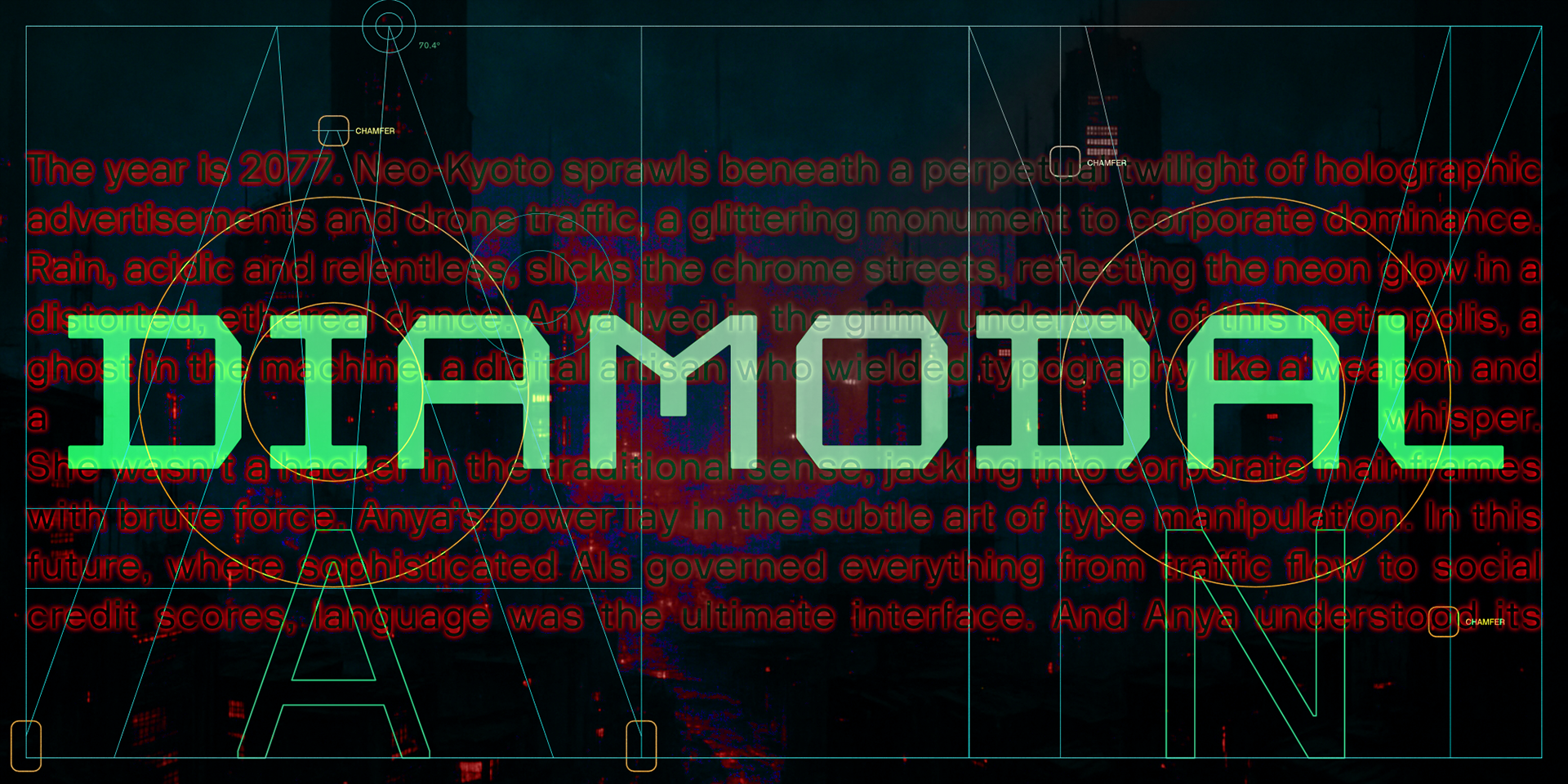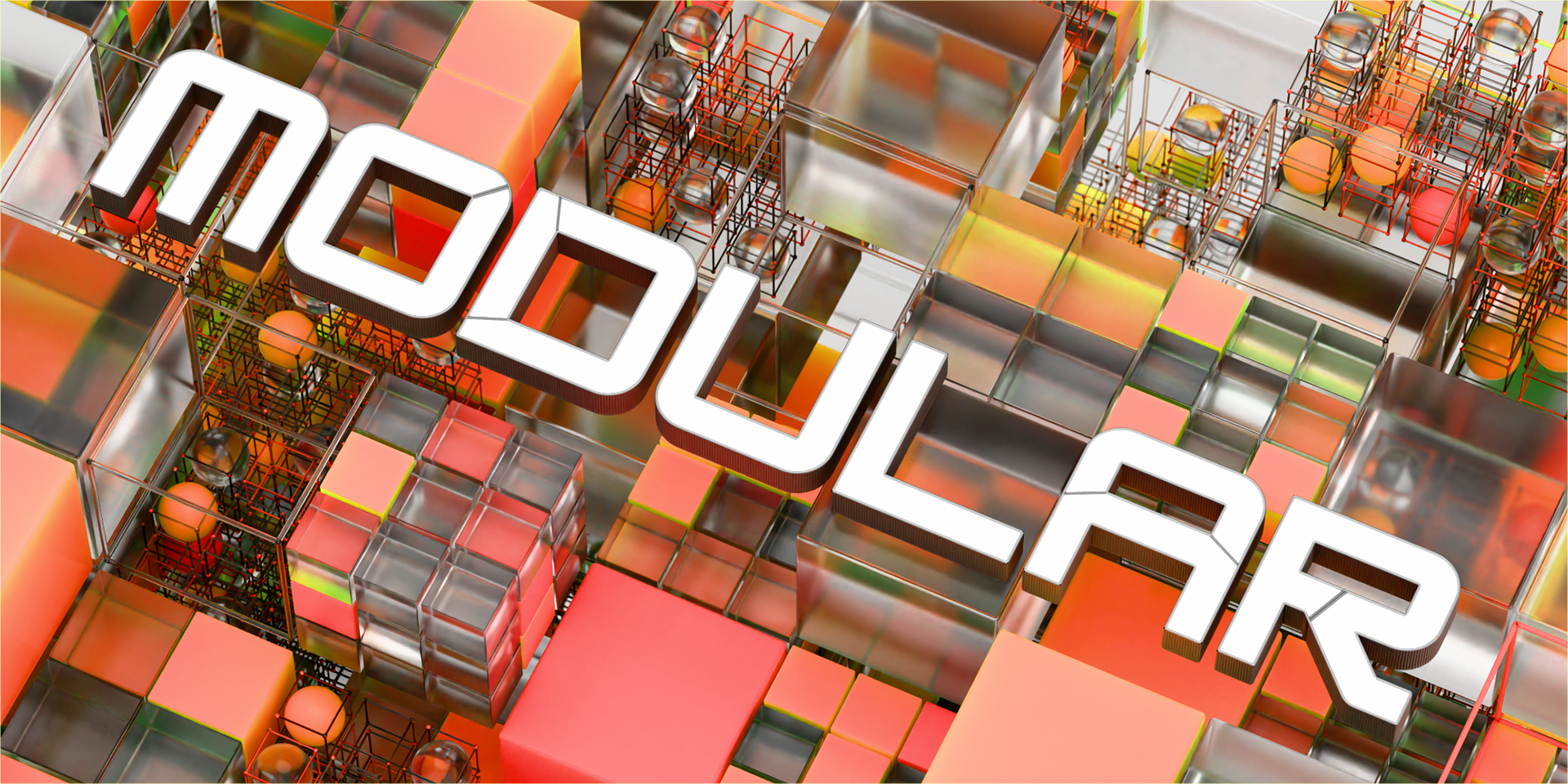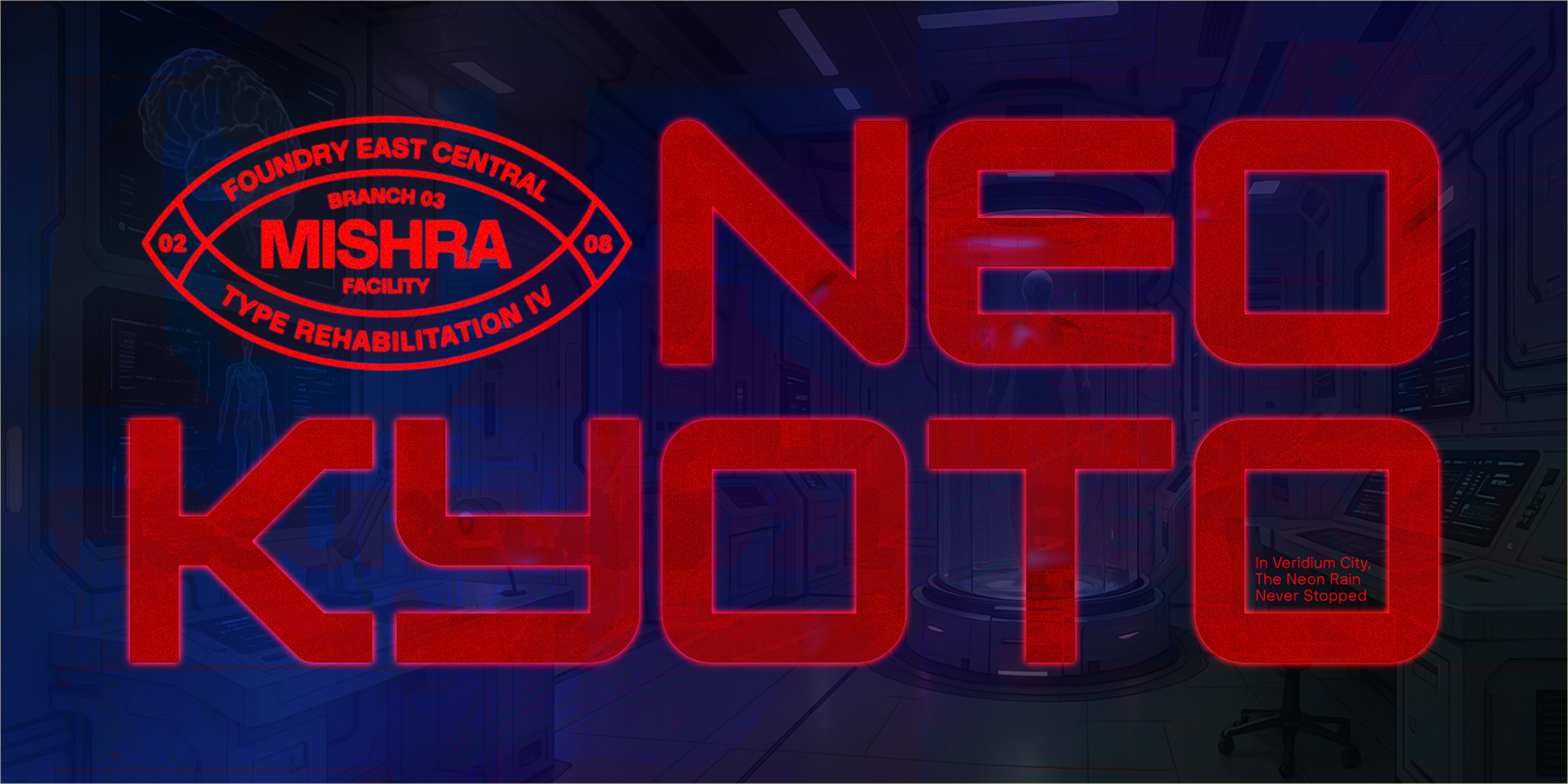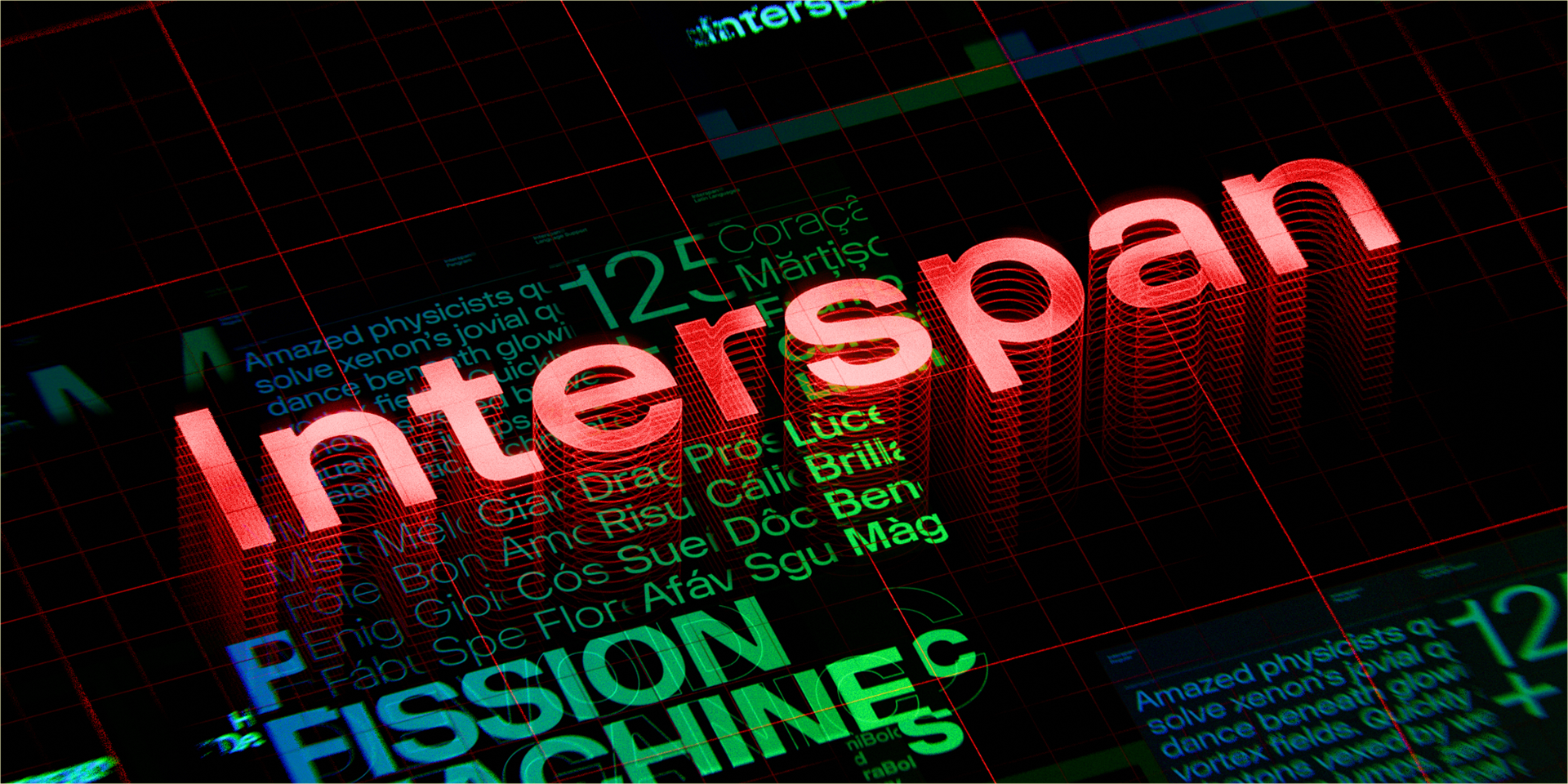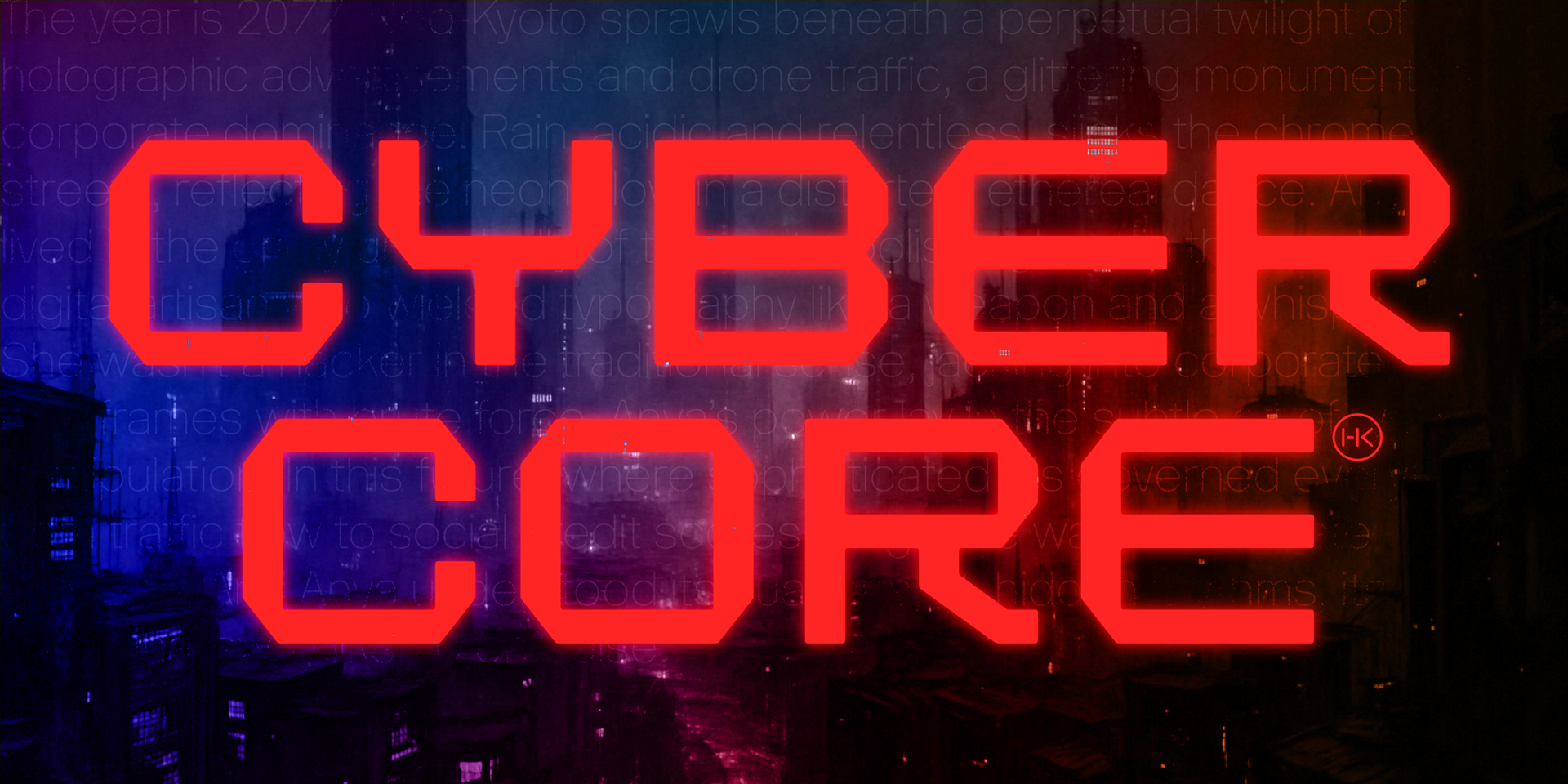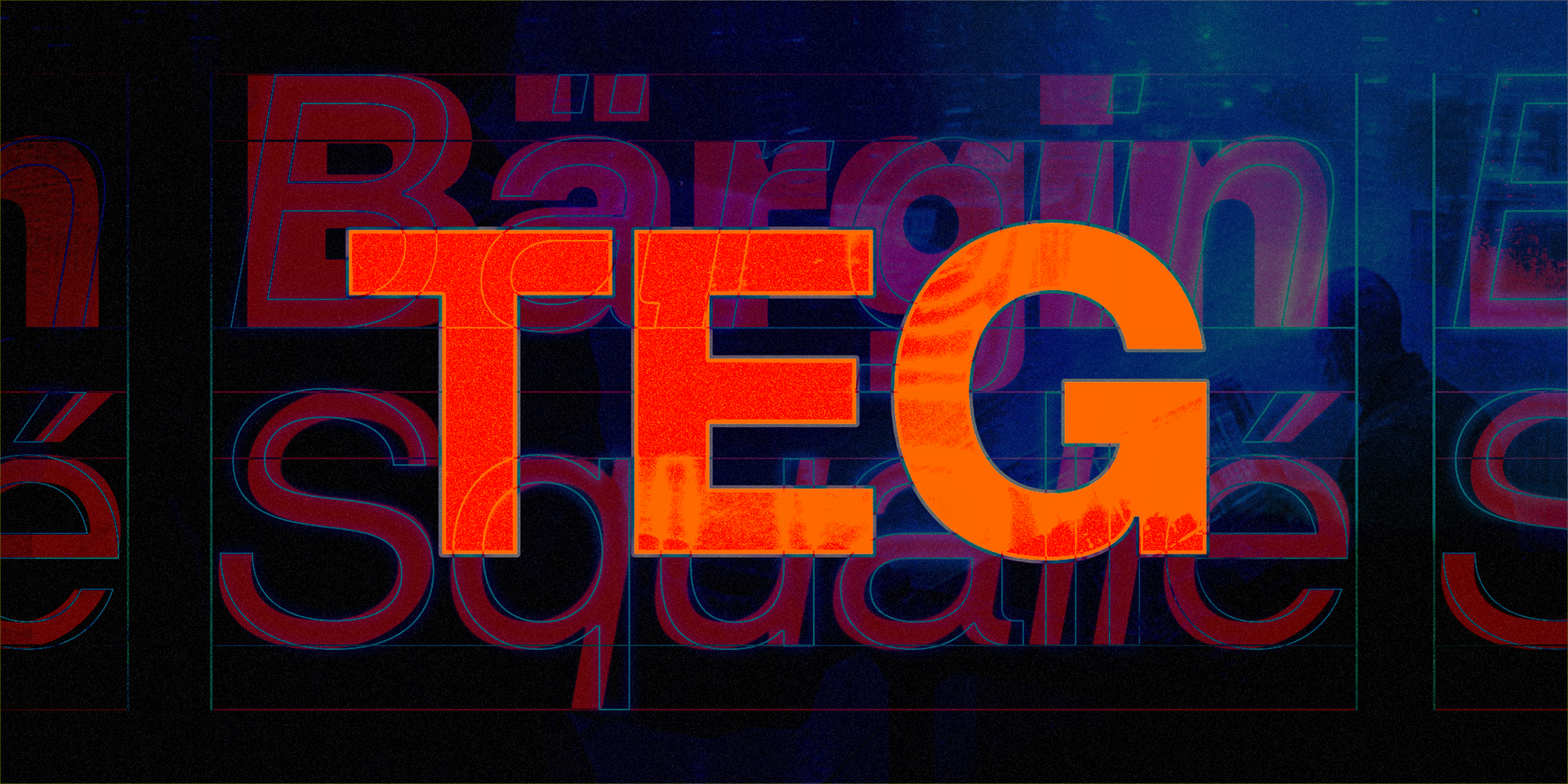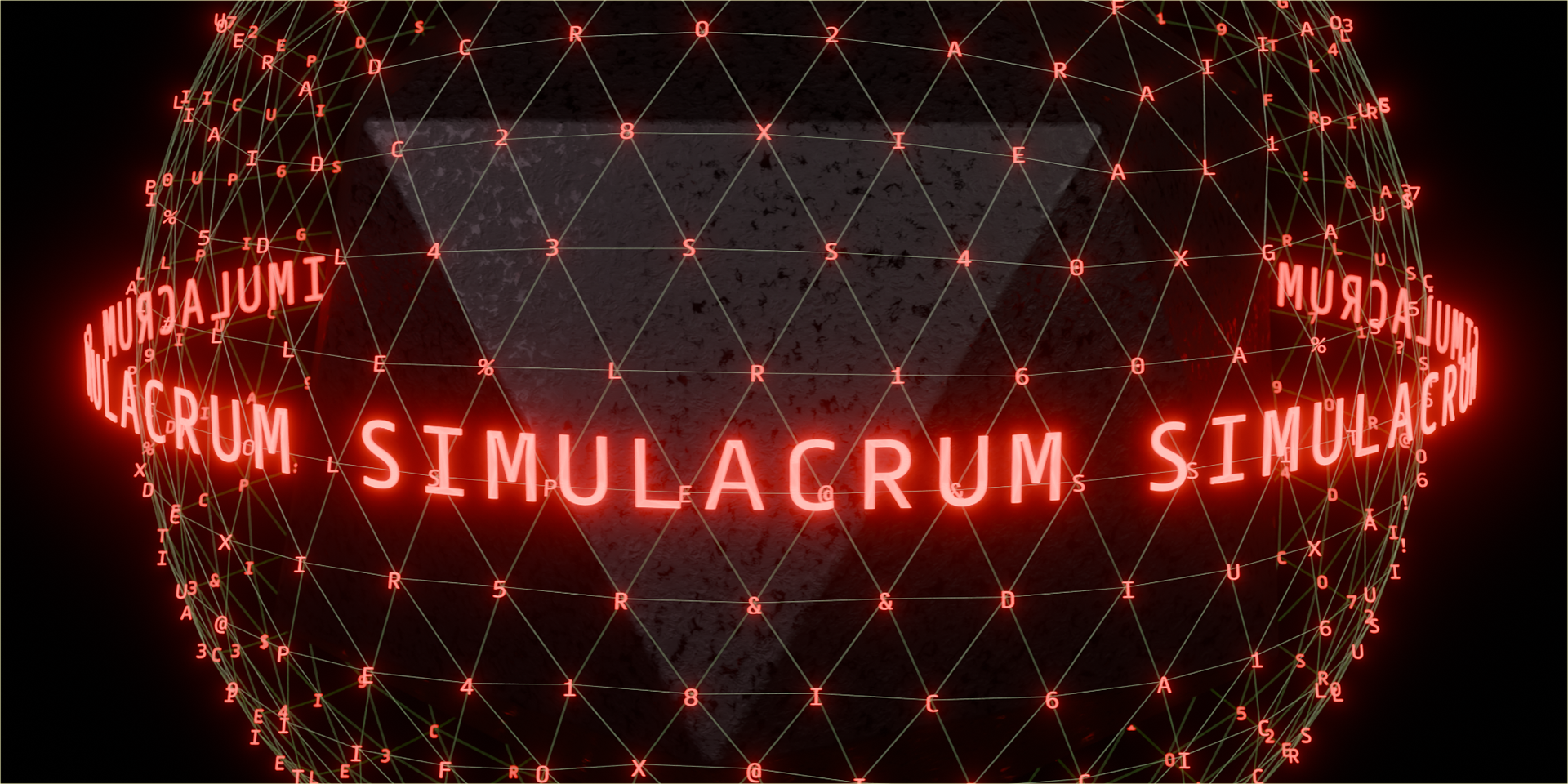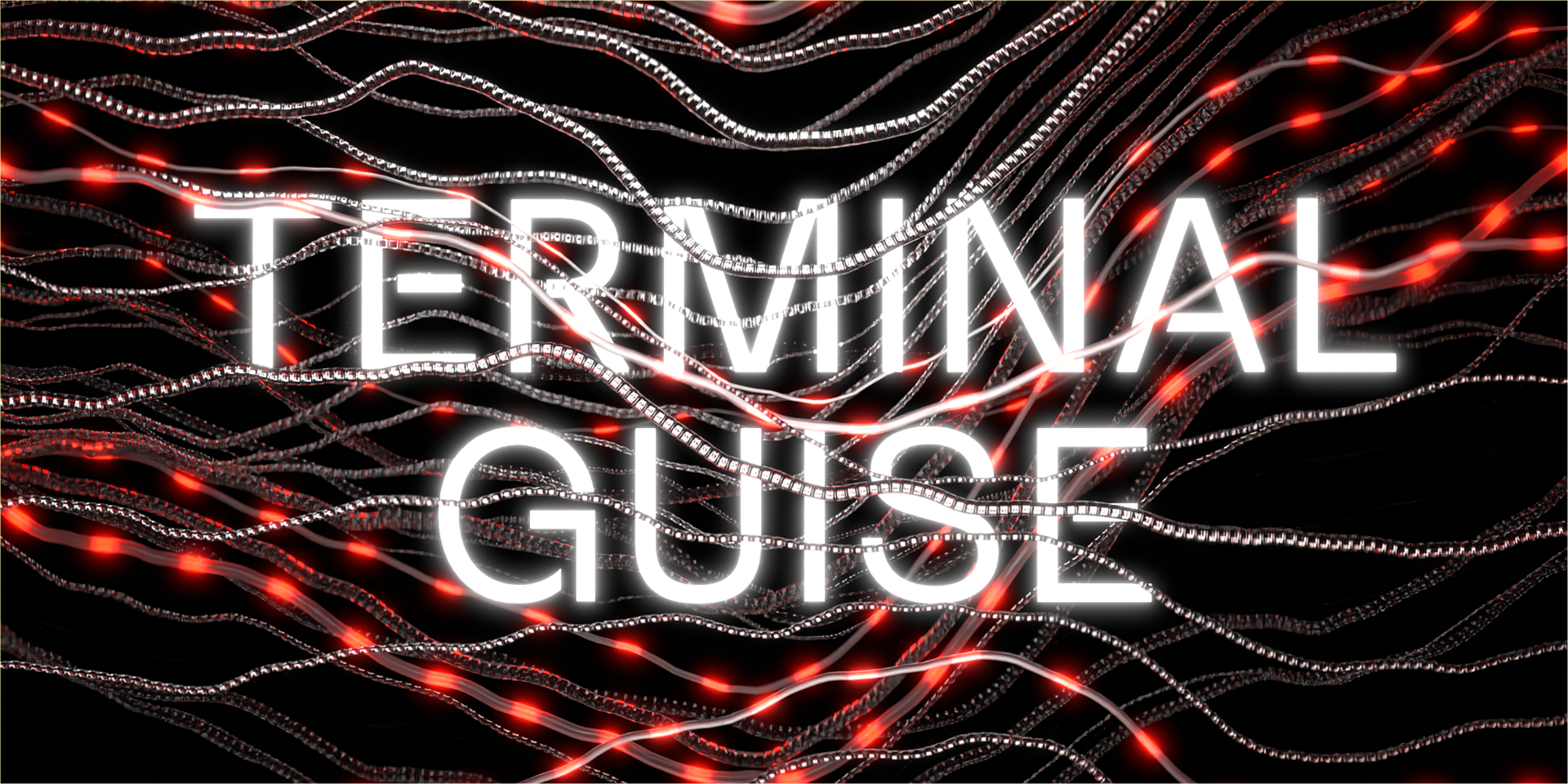
14 futuristic fonts. One electrifying toolkit.
⚡ Display + text styles you can mix and match
⚡ Built for UI, posters, games, and bold branding
Own the future. Design with our CyberCore Fonts.